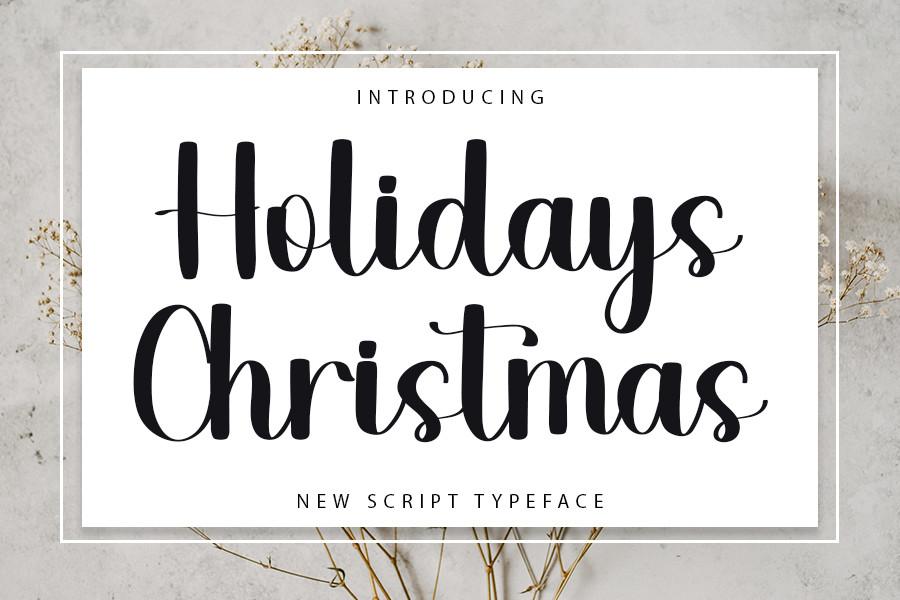
Holidays Christmas Font Description
Holidays Christmas is a delicate, elegant and flowing handwritten font. It has beautiful and well balanced characters and as a result, it matches a wide pool of designs. Add it to your most creative ideas and notice how it makes them come alive!